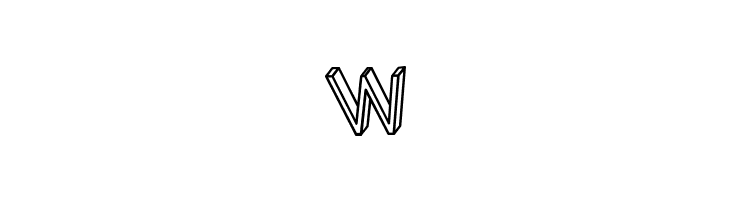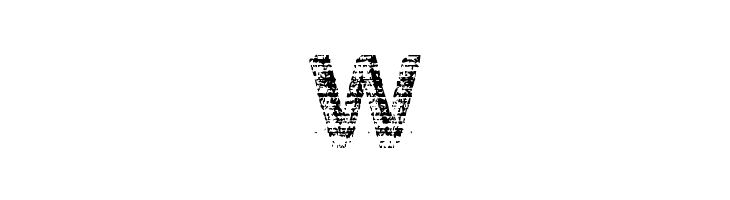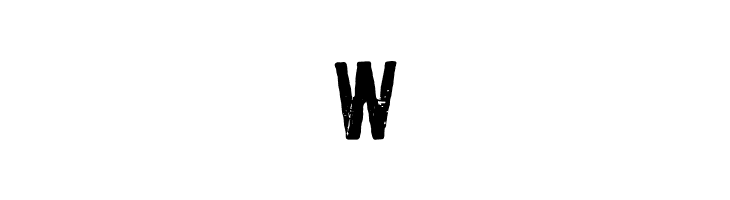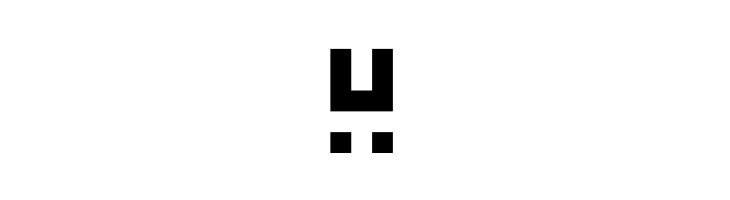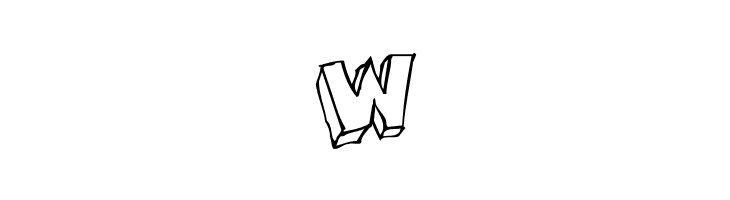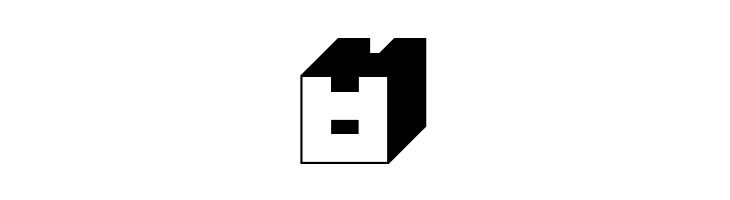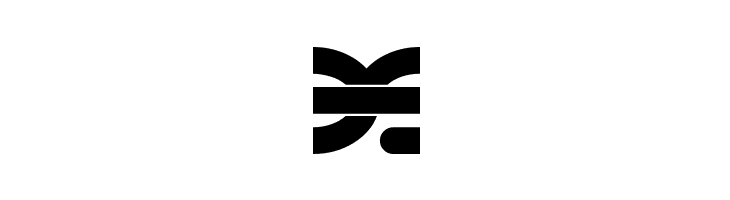
A bold, 3D isometric font with a modern, geometric style.
A bold, 3D isometric font with a geometric and modern style.
A bold, 3D geometric font with a strong, architectural style.
A bold, 3D font with a playful and dynamic style.
A bold, 3D font with inverted shadow effects for a striking appearance.
A bold, 3D font with shadow effects for a striking visual impact.
A bold, 3D font with layered, striped patterns creating a dynamic, geometric look.
A bold, 3D-effect font with a strong, blocky style ideal for dynamic displays.
A bold, 3D hand-drawn font with a playful and dynamic style.
A playful, bold 3D font with a hand-drawn, cartoon-like style.
A bold, pixelated font with a retro digital style.
A bold, geometric font with a futuristic and cohesive design.
A bold, geometric font with sharp angles and dynamic cutouts.
A bold, distressed font with a rugged, vintage appearance.
A bold, geometric font with a futuristic, digital style.
A dot matrix style font with a modern, digital appearance.
A modern, dot-based font with a playful and unique style.
A modern, pixelated font composed of 3x3 dot grids, offering a playful and tech-inspired aesthetic.
A modern, tech-inspired font using a 3x3 dot matrix outline.
A pixelated, monospaced font with a retro digital aesthetic.
A bold, 3D geometric block font with a modern, futuristic style.